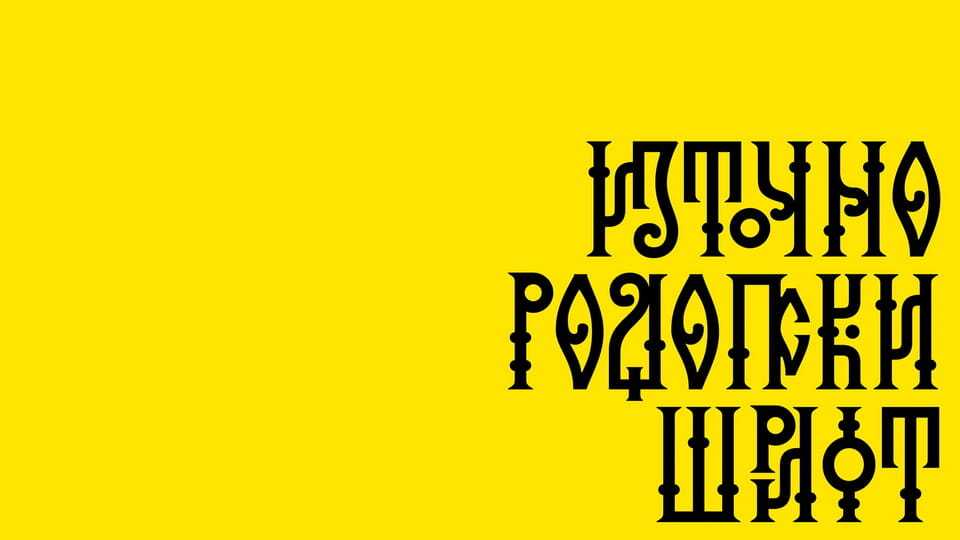
Download Eastern Rhodopes, a font inspired by lettering found on the cover of Ivan Balkansky’s book “Eastern Rhodope Fortresses.” It is rooted in the stylistics of Slavic vyaz, reinterpreted through a contemporary lens.
Designer: Dmitry Chekanov